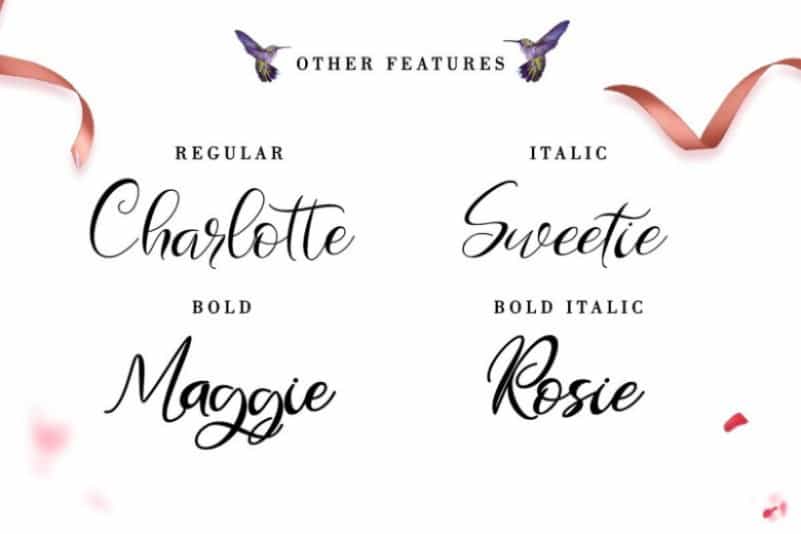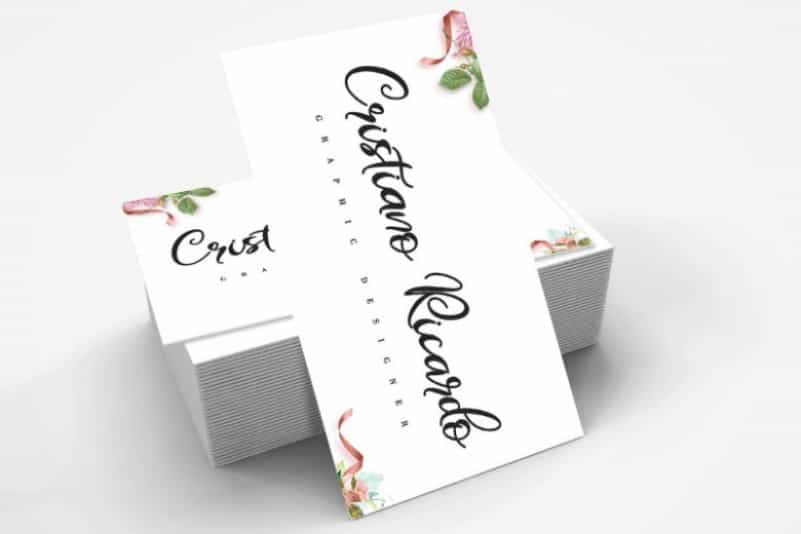
Gamos Font is a new fabulous and modern script with a handmade calligraphy style font for the creative people. a fabulous typeface that is attractive and So sweet and beautiful on invitation like greeting cards, branding materials, business cards, quotes, posters, and more!